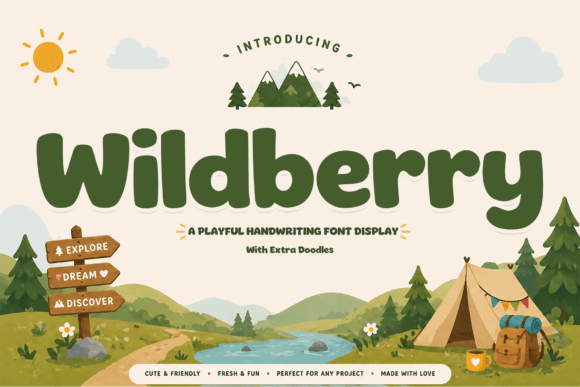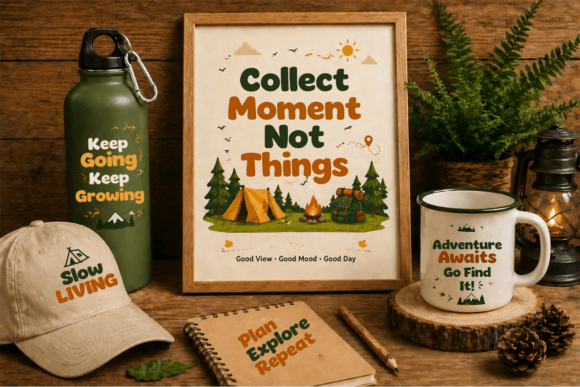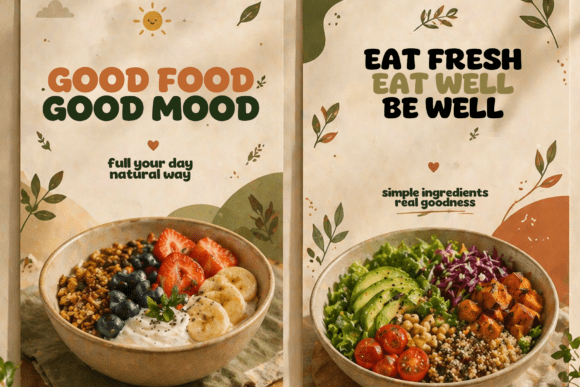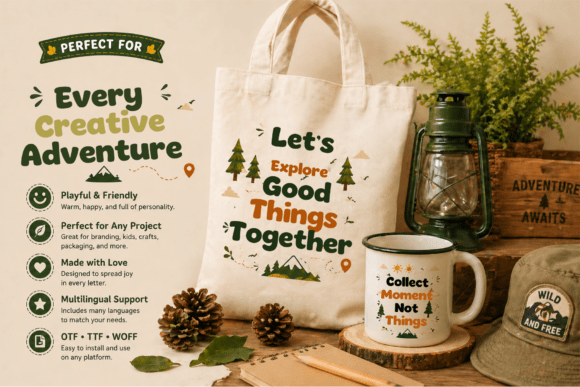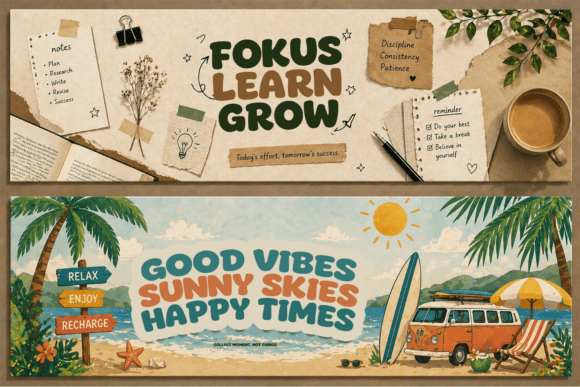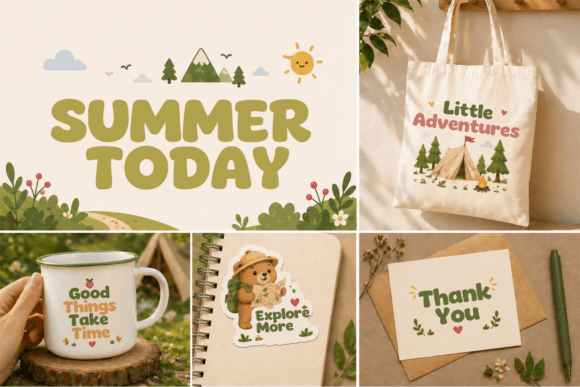
Wildberry Script Fonts
Unleash a burst of unfiltered joy onto your canvas with Wildberry. This gestural display face captures the rhythmic charm of spontaneous ink-to-paper movement, offering an approachable charisma that resonates instantly. Designed for those who seek to break away from the grid, it serves as the perfect catalyst for high-impact streetwear, whimsical nursery aesthetics, and soulful brand identities. Whether you’re scaling it for a bold event poster or detailing an intimate stationery suite, Wildberry transforms every message into a vibrant conversation, ensuring your digital and print narratives feel authentically human.